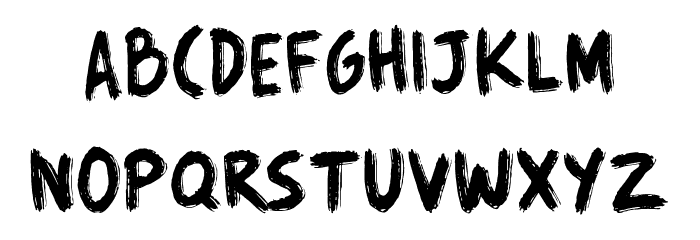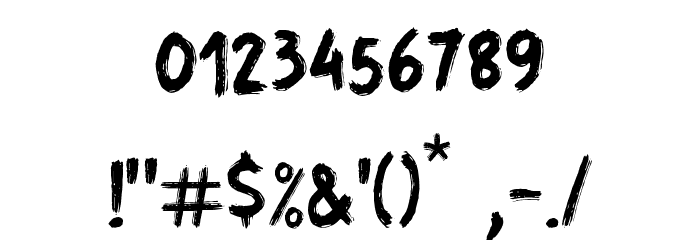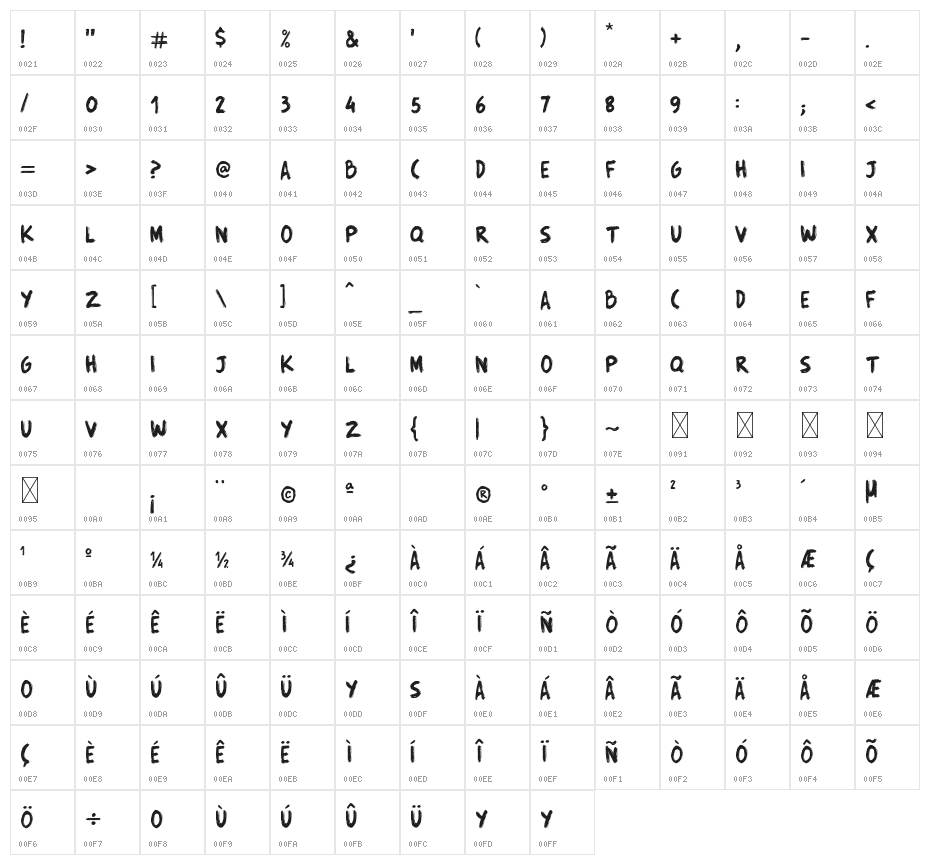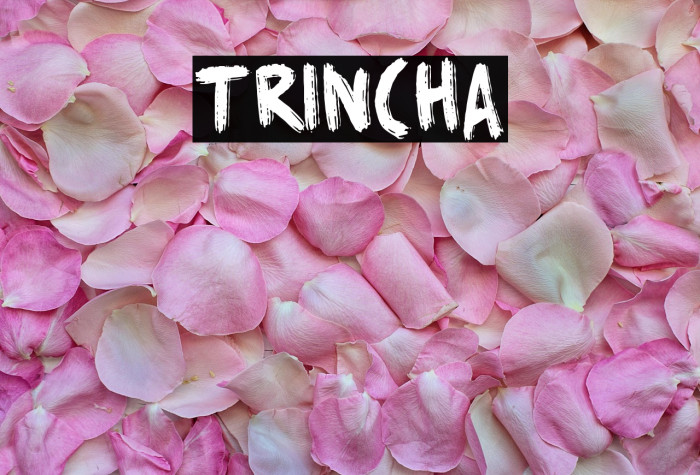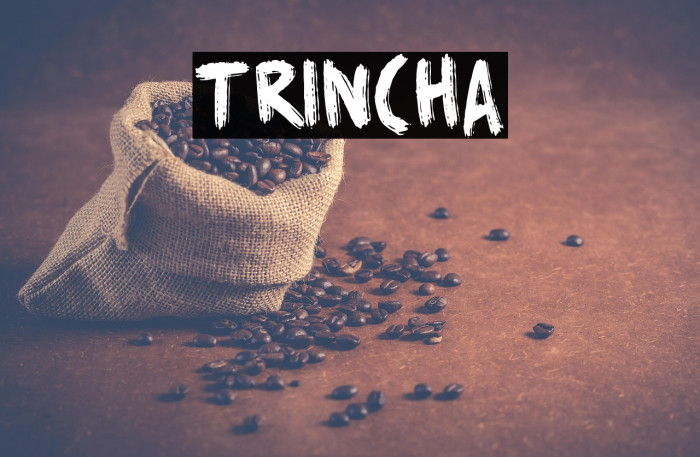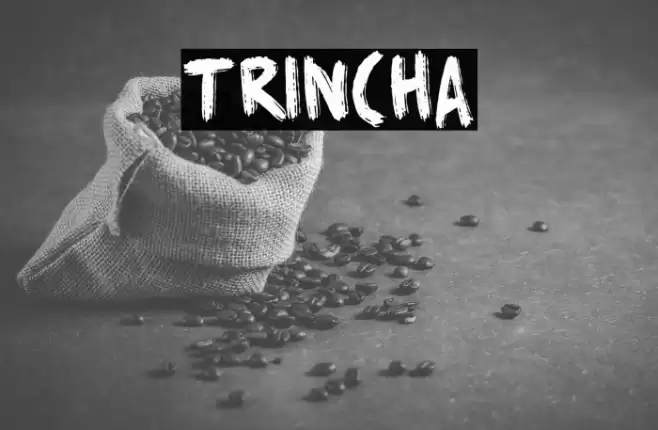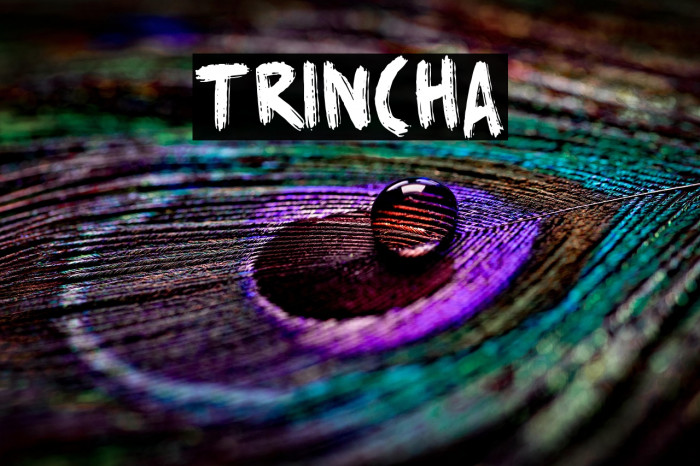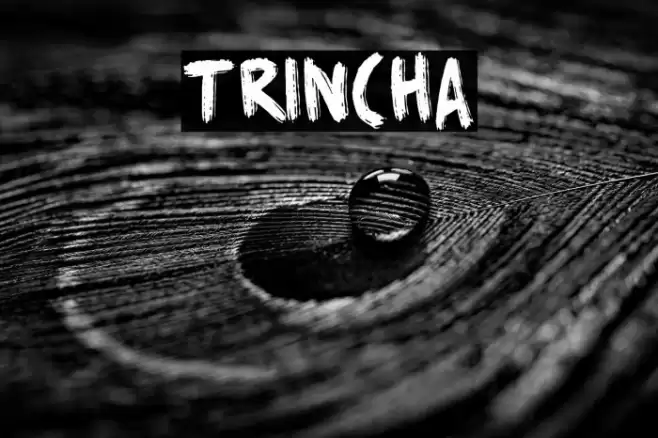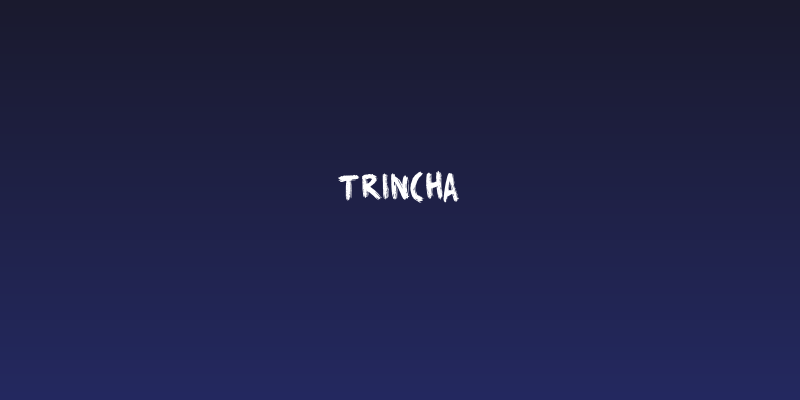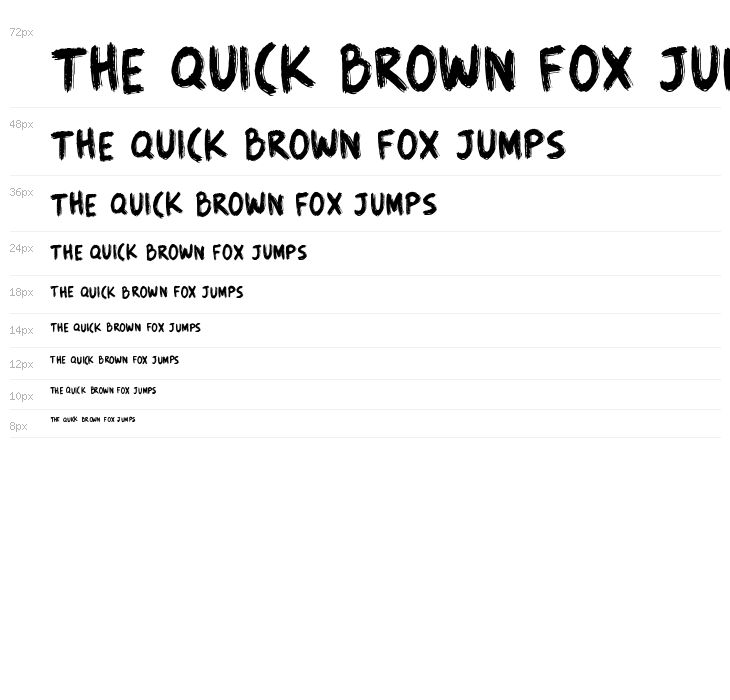
Trincha Font
This font features a bold and expressive brushstroke style, giving it a dynamic and energetic appearance. The characters are crafted with a rough, textured edge, reminiscent of hand-painted lettering. This style adds a personal and artistic touch, making it stand out in any design. The uppercase and lowercase letters maintain a consistent height, while the numbers and special characters complement the overall aesthetic. The font's unique style is perfect for projects that require a creative and informal look.
A bold, brushstroke-style font with a dynamic, hand-painted appearance.
- Proposed Projects: Ideal for posters, album covers, artistic branding, and creative social media graphics.